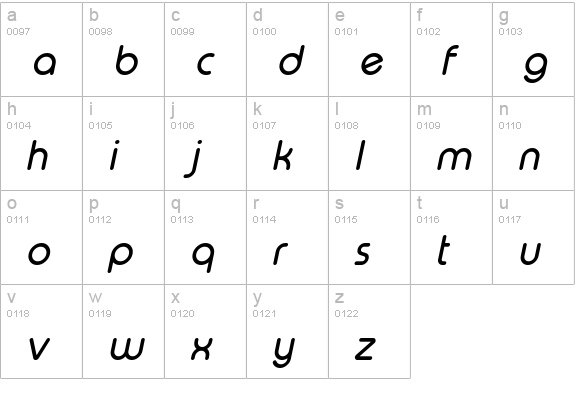
Typo Round Italic Demo Font Details
Typo Round Italic Demo is a distinctive, italic variant in the Typo typeface family \xE2\x80\x94 well suited to design and typography projects.
Introducing Typo Round Italic Demo font, a stunning and versatile typeface that adds a touch of elegance and sophistication to any design project. This beautiful font showcases a unique combination of rounded edges and sleek italic letterforms, creating a visually pleasing and modern aesthetic. With its smooth curves and gentle slant, Typo Round Italic Demo font is perfect for a wide range of applications, from logo design and branding to packaging and advertising. Whether you're aiming for a contemporary look or a more playful and friendly vibe, this font effortlessly adapts to various design styles and concepts. One of the most exciting aspects of Typo Round Italic Demo font is that it is completely free. Yes, you heard that right! You can freely download and use this font for both personal and commercial projects, without any restrictions or limitations. This makes it an excellent choice for designers, students, and anyone in need of a high-quality typeface without breaking the bank. To get your hands on this fantastic font, simply head over to FontsMarket.com, a trusted online platform for downloading premium fonts. Once there, you can easily locate and download Typo Round Italic Demo font, and be on your way to creating stunning designs in no time. So why wait? Embrace the beauty and versatility of Typo Round Italic Demo font today, and watch your designs come to life with its elegant and captivating presence. Download it for free at FontsMarket.com and elevate your creative projects to new heights.